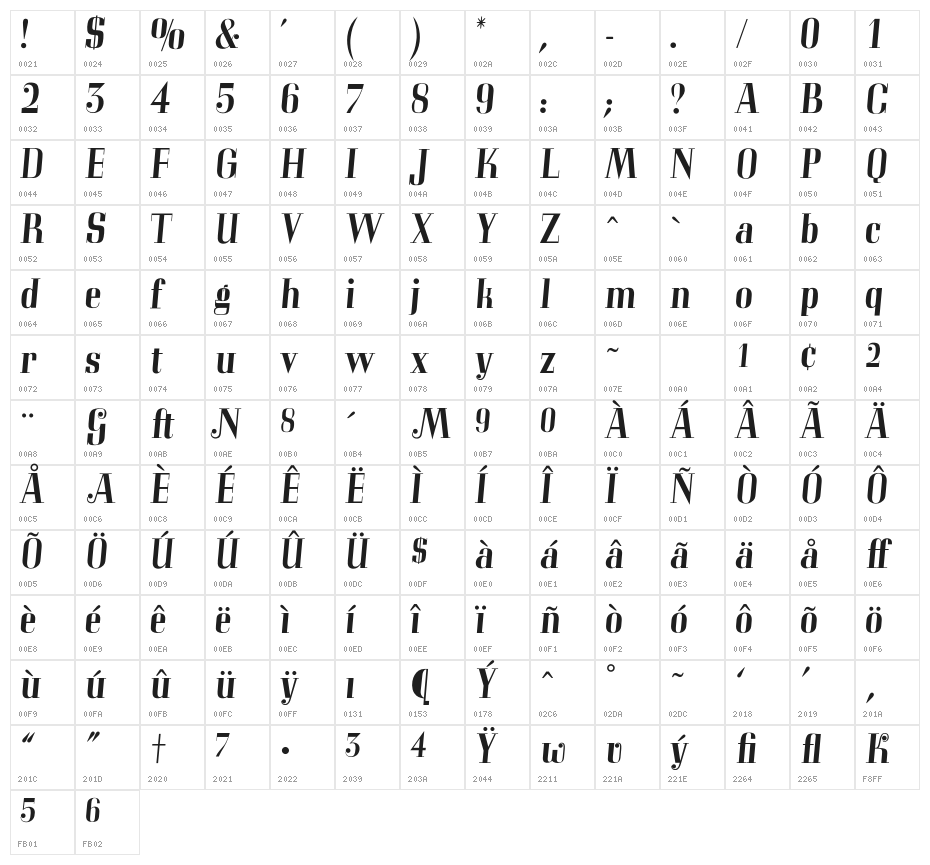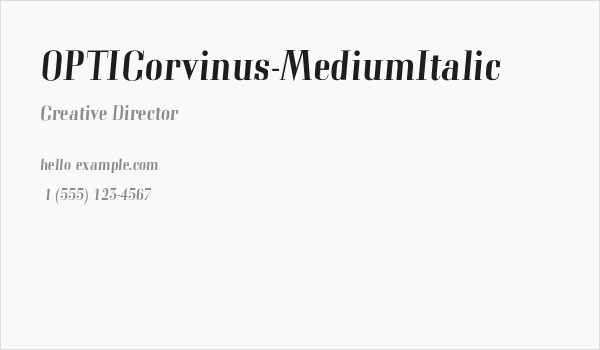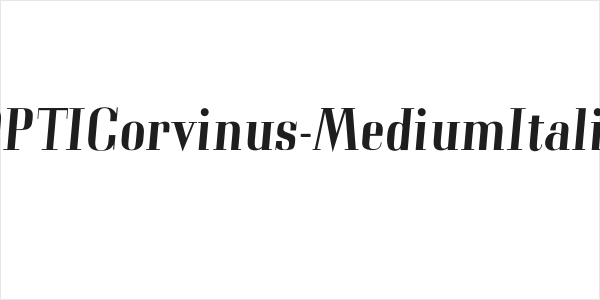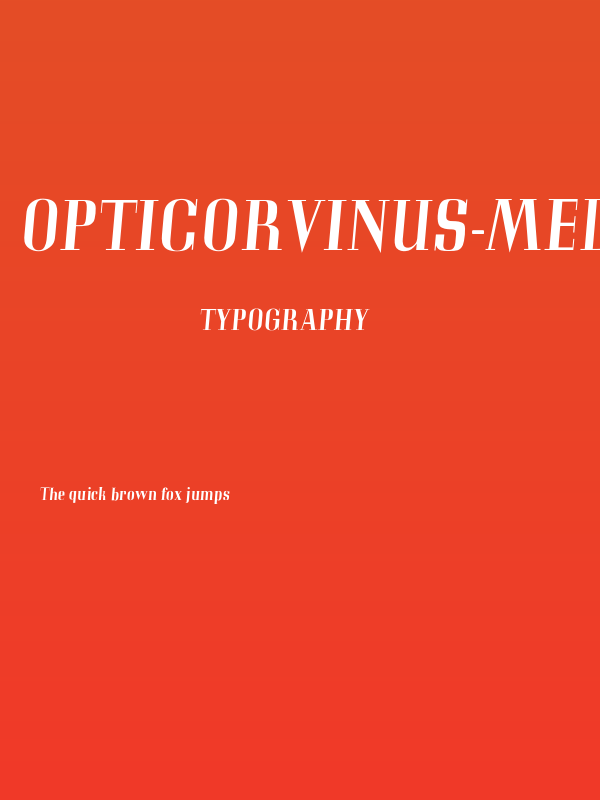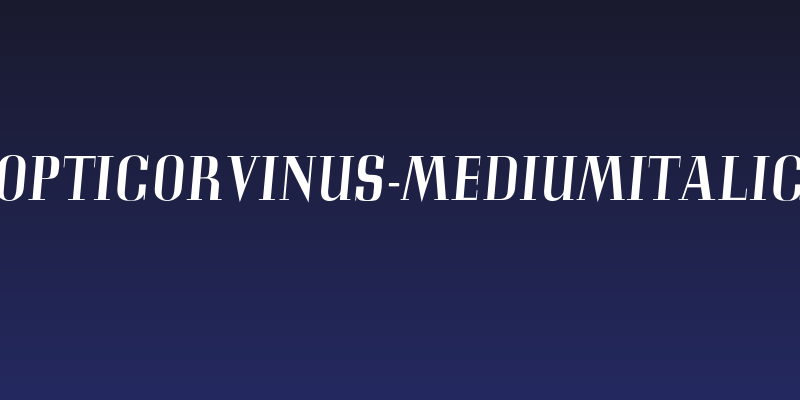
OPTICorvinus-MediumItalic Font
OPTICorvinus-MediumItalic Description
This font exudes a sophisticated and elegant style, characterized by its medium weight and italic slant. The letters are crafted with a high contrast between thick and thin strokes, giving it a refined and classic appearance. The serifs are sharp and pronounced, adding to its formal and traditional feel. The uppercase letters are tall and commanding, while the lowercase letters maintain a consistent flow, enhancing readability. The numerals are distinct and well-proportioned, complementing the overall aesthetic. Special characters are designed with the same attention to detail, ensuring versatility across various applications.
| Use Case | Headlines, Logos, Editorial design |
| Proposed Projects | Ideal for editorial design, luxury branding, formal invitations, and elegant packaging. |